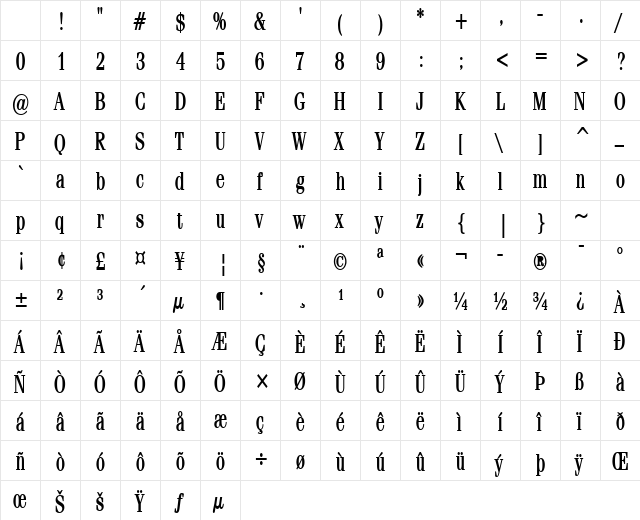
Complete Feline Thin Bold glyph index. Displaying only characters natively supported by Feline Thin Bold font.
Feline Thin is a composed and adaptable typeface that performs quietly and consistently across a wide range of design contexts. Its bold stroke weight gives it real presence on the page.